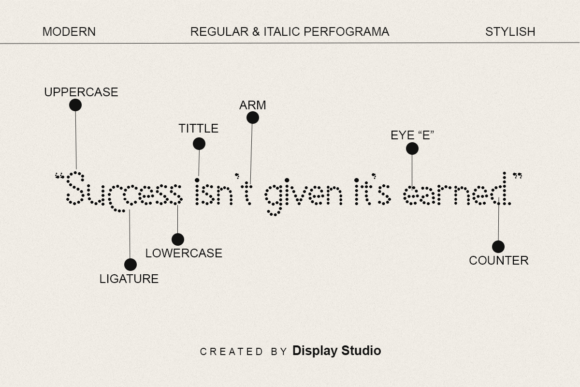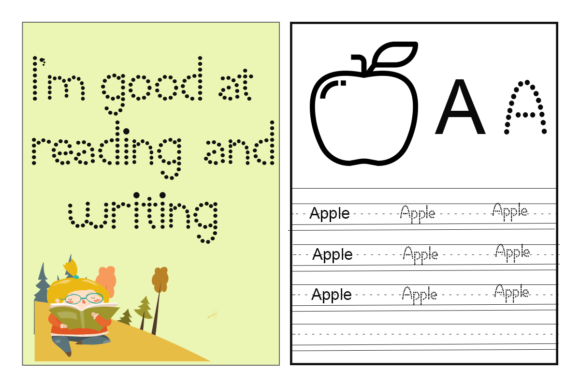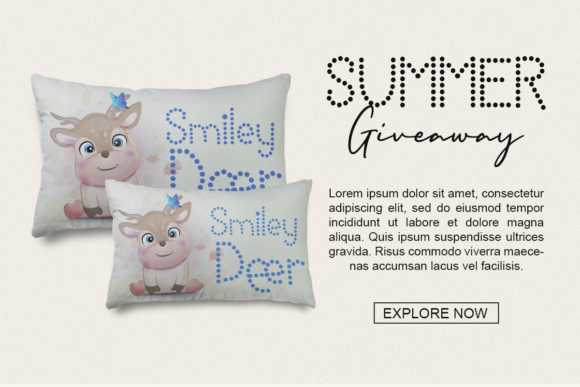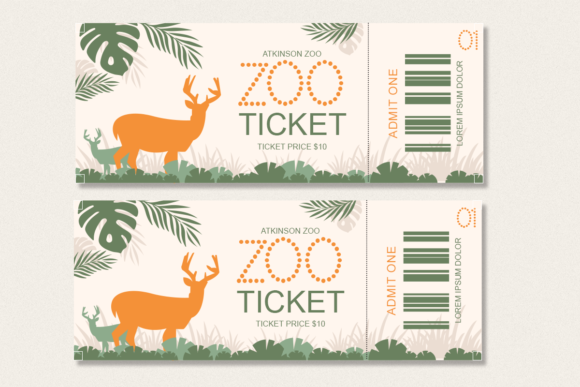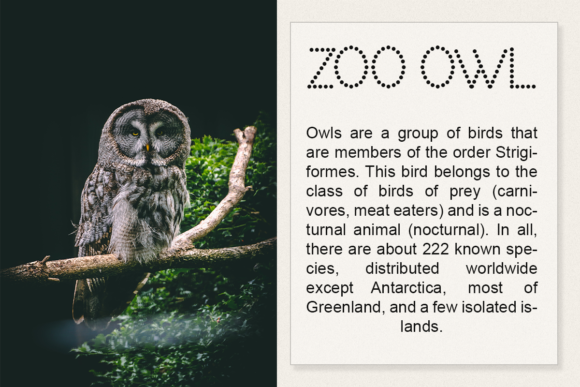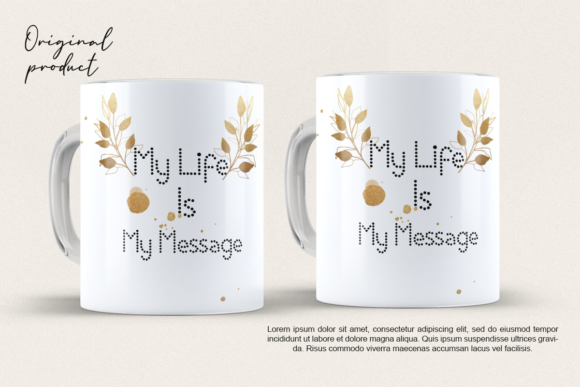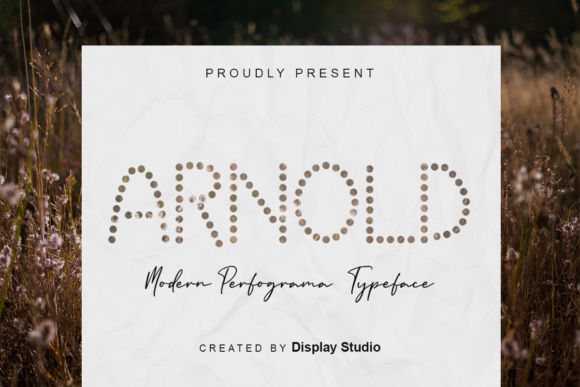
Introducing Arnold Font: The Ultimate Decorative Typeface for Creative Projects
Are you a designer or crafter looking for a unique and friendly font to elevate your creative projects? Look no further than Arnold Font, a decorative typeface that is perfect for adding a touch of personality to your brand logos, invitations, greeting cards, and more. With its childish features and style variations, Arnold Font is sure to enhance the aesthetic appeal of your work and make it stand out from the crowd.
What Makes Arnold Font So Special?
Arnold Font is a one-of-a-kind typeface that boasts a playful and charming design. Its unique features and style variations make it an ideal choice for a wide range of creative projects, from branding and advertising to crafting and DIY. Whether you’re looking to create a fun and whimsical logo or a beautiful and elegant invitation, Arnold Font has got you covered.
Key Features of Arnold Font
- Unique and Friendly Design: Arnold Font features a distinctive and approachable design that is sure to capture the attention of your audience.
- Childish Features: With its playful and childish features, Arnold Font is perfect for projects that require a touch of whimsy and fun.
- Style Variations: Arnold Font comes in a range of style variations, allowing you to experiment with different looks and feels to find the perfect fit for your project.
- High-Quality Typeset: Arnold Font is a high-quality typeset that is designed to deliver exceptional results, whether you’re working on a digital or print project.
Arnold Font is a versatile typeface that can be used for a wide range of creative projects, including:
- Brand Logos: Create a unique and memorable logo for your brand with Arnold Font.
- Invitations: Use Arnold Font to create beautiful and eye-catching invitations for special occasions.
- Greeting Cards: Add a personal touch to your greeting cards with Arnold Font’s playful and charming design.
- Crafting and DIY Projects: Arnold Font is perfect for crafting and DIY projects, such as scrapbooking, journaling, and more.
Why Choose Arnold Font?
With so many fonts to choose from, why should you choose Arnold Font for your creative projects? Here are just a few reasons:
- Unique Design: Arnold Font features a unique and distinctive design that will set your project apart from the crowd.
- High-Quality Results: With Arnold Font, you can achieve high-quality results that will exceed your expectations.
- Perfect for Designers and Crafters: Arnold Font is perfect for designers and crafters who want to add a touch of personality to their projects.
In conclusion, Arnold Font is a unique and friendly decorative font that is perfect for a wide range of creative projects. With its childish features and style variations, this typeface is sure to enhance the aesthetic appeal of your work and make it stand out from the crowd. Whether you’re a designer or crafter, Arnold Font is an excellent choice for anyone looking to add a touch of personality to their projects. So why wait? Download Arnold Font today and start creating amazing projects that will leave a lasting impression on your audience.